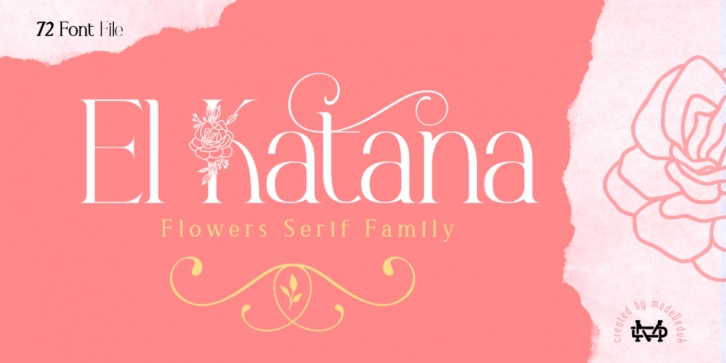
Designed by Suandana Ipandemade, El Katana Family is a display serif and dingbat font family. This typeface has forty styles and was published by madeDeduk.
Really excited to introduce El Katana is a luxury serif family with flowers in each type so you can safe more time to design and comes with much version! Comes with 72 font file, 3 weight and flourish ornament. A lot of stylish will makes this font suitable for your any project design.